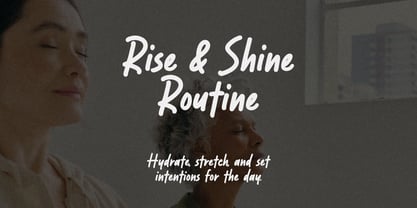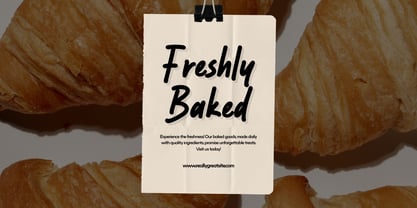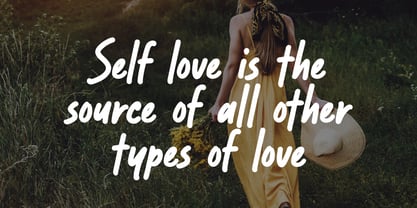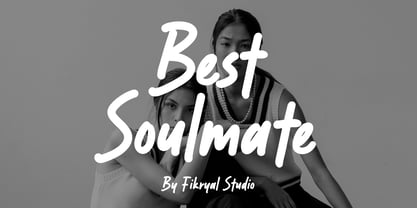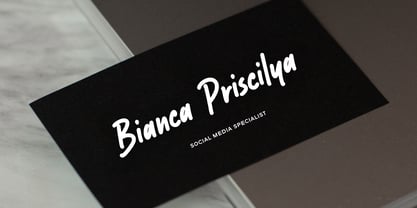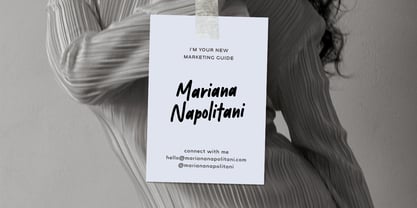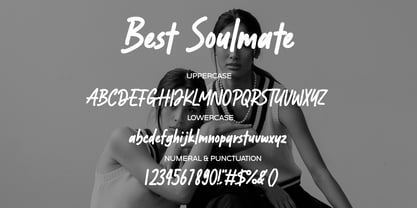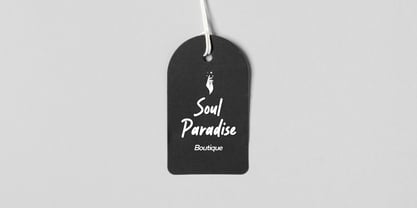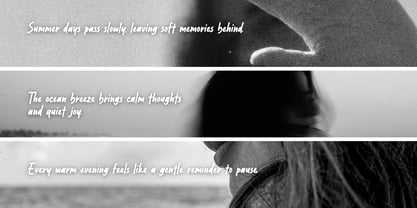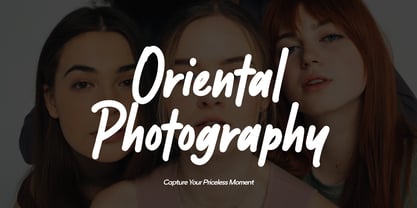
Best Soulmate
by Fikryal
The Best Soulmate Font Family was designed by Muhammad Fikry and published by Fikryal. Best Soulmate contains 1 styles. More about this family
Best Soulmate is a handwritten display font that beautifully combines warmth, charm, and authenticity. Every stroke feels organic — as if written by hand — making it perfect for projects that need a personal, heartfelt touch. This font is ideal for logo design, branding, packaging, invitations, social media posts, quotes, greeting cards, and product labels. Its natural flow and soft curves bring emotion and elegance to every word. Designed with versatility in mind, Best Soulmate looks stunning both in large headlines and small text compositions. Whether you’re crafting a romantic wedding logo or a cozy handmade brand, this font will make your design stand out effortlessly. ✨ Features: Uppercase & Lowercase Letters Numbers & Punctuation Multilingual Support Natural handwritten texture Smooth and readable curves Perfect For: Branding • Logo Design • Wedding Invitations • Packaging • Social Media • Quotes • Handmade Products Let your design speak with sincerity and love — Best Soulmate is your perfect match for creative storytelling. If you have any questions please don’t hesitate to contact me follow my Instagram: fkryall Thank you
Designers: Muhammad Fikry
Foundry: Fikryal